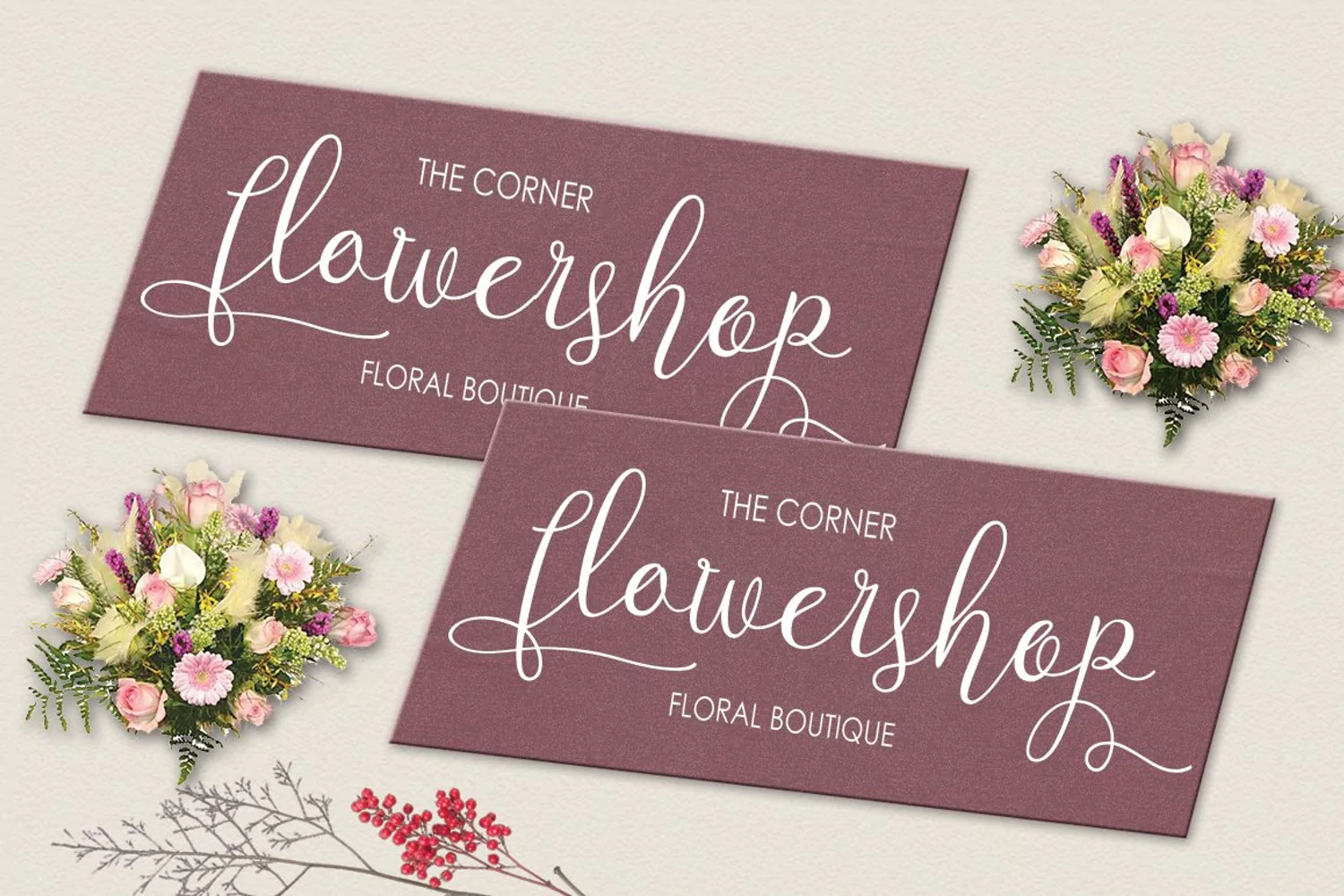
Alligature script
INTRODUCING
Alligature Script: A script is so beautiful with
gorgeous grounds, and equipped with lines perfect combination to enhance
the appearance, and can use a variety of purposes of use. such as
title, signature, logo, correspondence, wedding invitations, letterhead,
signage, labels, newsletters, posters, badges, Branding, Greeting
Cards, etc.
Alligature Script: features 581 glyphs and has given PUA Unicode
(font specific code), can be accessed easily with the character map,
can be accessed in full by lovers of letters or craftsmen to enhance a
career in the design world.
Features of this font: Standard ligatures, Stylistic Alternates, Stylistic Sets, and Swashes.
Basic Features Latin A-Z and a-z Number Symbols